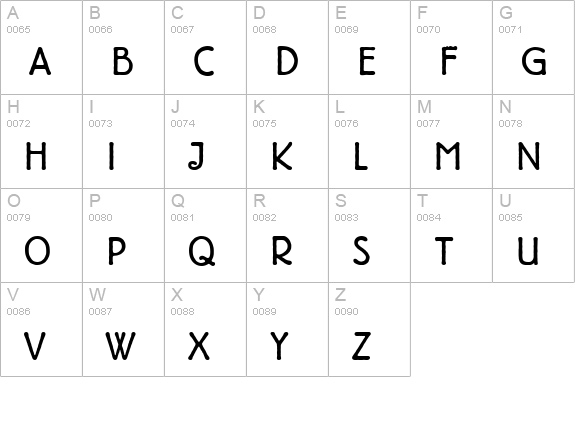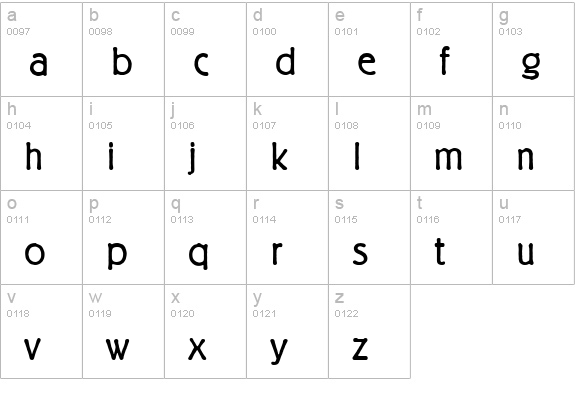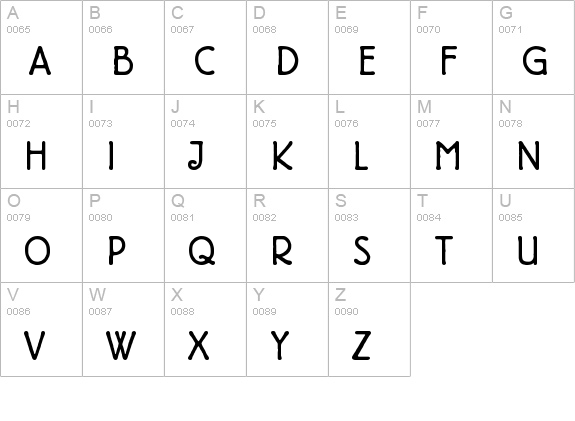
B693-Deco-Regular Font Details
B693-Deco-Regular is the standard, neutral variant in the B693 typeface family \xE2\x80\x94 well suited to general body text, paragraphs, and standard typographic work.
B693-Deco-Regular is a stylish and elegant font that brings a touch of sophistication to any design project. With its sleek lines and art deco-inspired details, this font is perfect for creating eye-catching headlines, logos, and branding materials. The versatile nature of B693-Deco-Regular makes it suitable for a wide range of design applications, from posters to packaging. The best part about B693-Deco-Regular is that it is completely free to download at FontsMarket.com. This means that you can access this high-quality font without any cost, making it a valuable resource for designers and creatives looking to elevate their projects. Don't miss out on the opportunity to enhance your designs with the timeless elegance of B693-Deco-Regular – download it for free today at FontsMarket.com!